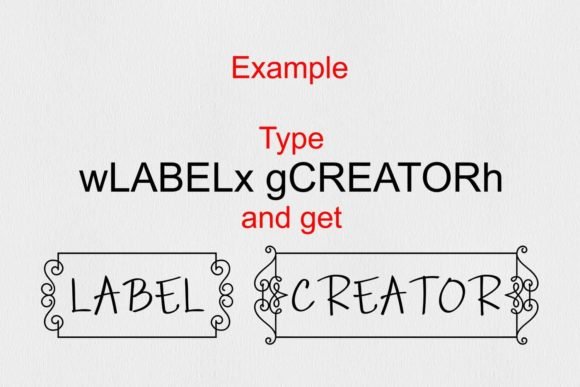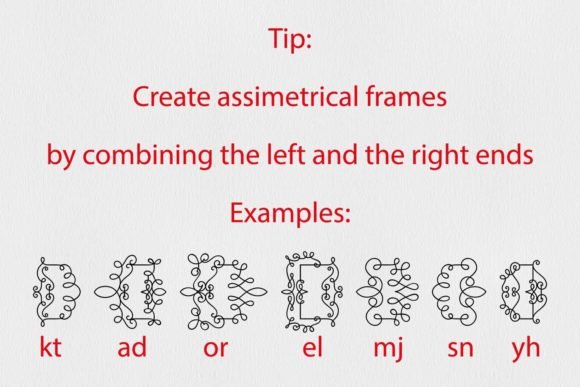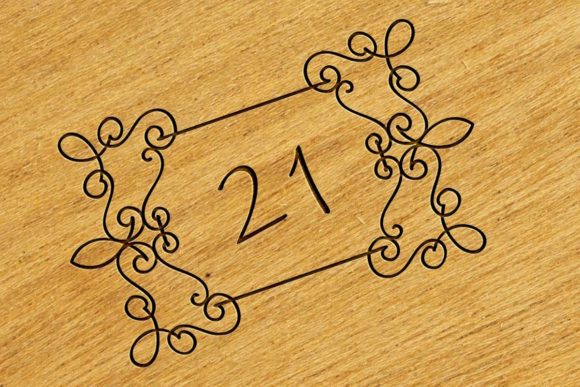
Label Creator is an elegant and distinct decorative font. Fall for its ravishing style and use it to create gorgeous wedding invitations, beautiful stationary art, eye-catching social media posts, and much more! Only available on the Creative Fabrica site for another 5 days, don’t miss it!